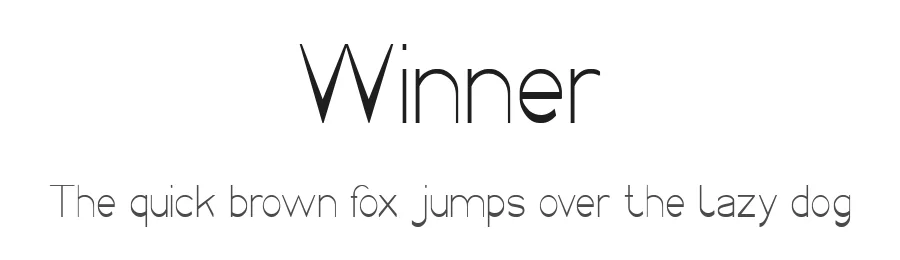
Condette St is a decorative font designed by Reffan Suseno. It includes 99 glyphs, a regular weight, OTF (CFF) format, and 197 languages. Condette St is free to download; check the license details on this page before commercial use. Decorative fonts like Condette St work best for logos, posters, packaging, and standout headlines.
Condette St Font is a decorative font that shines as a display or heading face. Pair it with a clean sans-serif or serif font for body text β the contrast creates a clear hierarchy while the two styles stay balanced and easy to read.